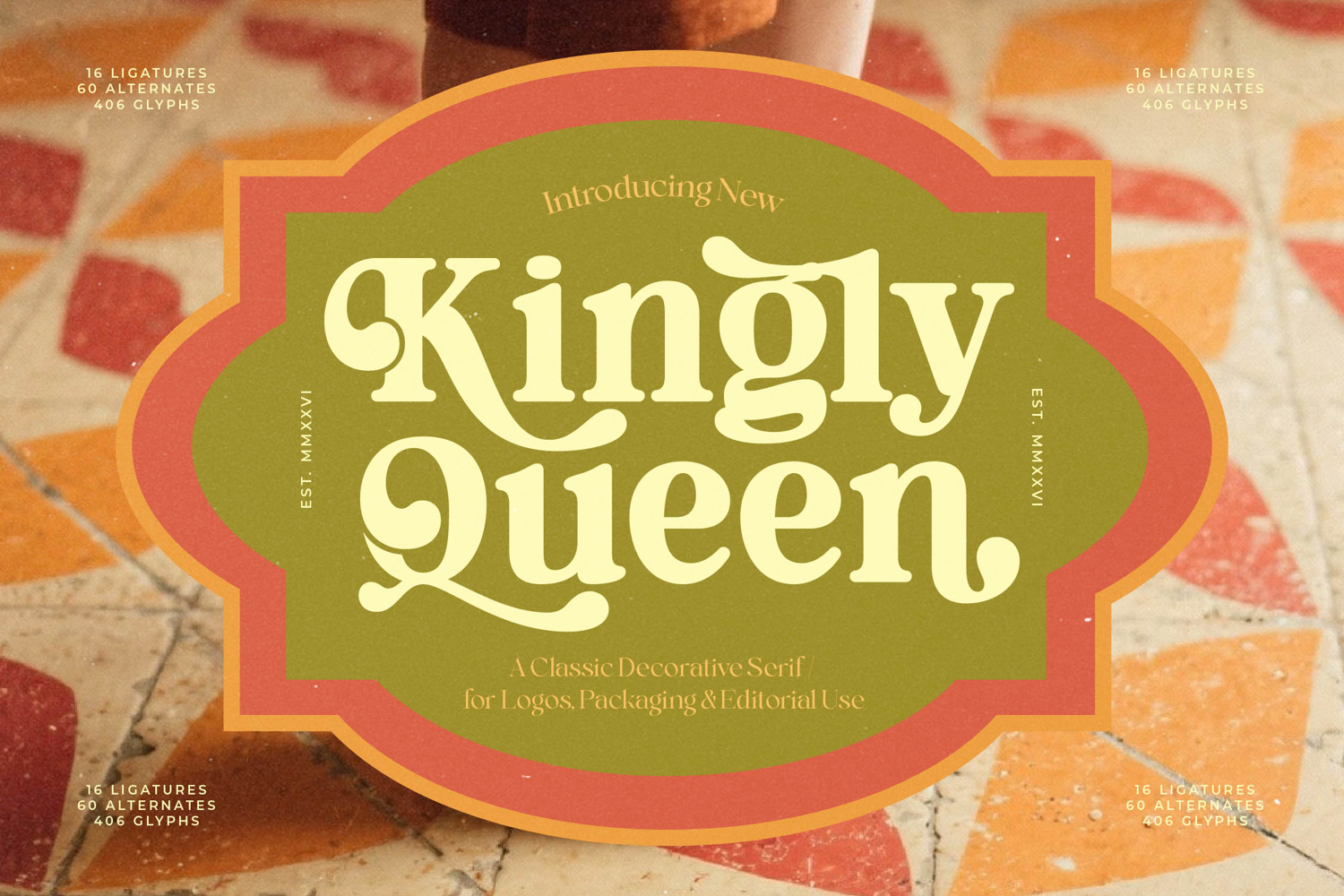
Kingly Queen - Classic Decorative Serif
Kingly Queen - Classic Decorative Serif. This typeface is a sophisticated fusion of traditional serif architecture and playful, high-contrast curves, delivering an unforgettable, high-impact presence. Its robust baseline and decorative terminals evoke the opulence of the late 60s and 70s, perfectly balancing retro nostalgia with modern typographic demands.